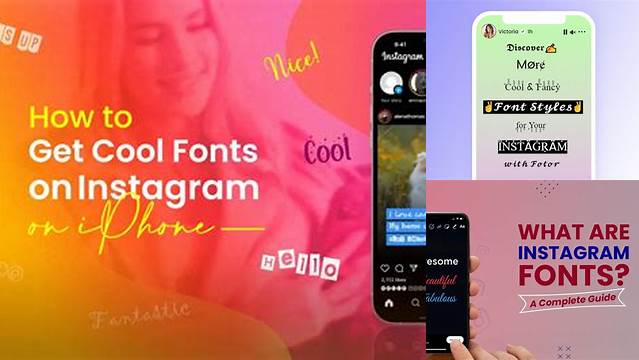
Cool IPhone Fonts For Instagram: How To Use
Hey guys! Ever wonder how some Instagram profiles have those super cool and unique fonts? It’s not just magic! Using different fonts can seriously level up your Instagram game, making your posts and bio stand out. If you're looking to add some flair to your Insta, you've come to the right place. We’re going to dive deep into the world of iPhone fonts for Instagram, showing you how to find, use, and even create your own eye-catching text. So, grab your iPhone, and let's get started!
1. Why Use Custom Fonts on Instagram?
Okay, so why bother changing your fonts on Instagram? Well, think of it this way: your profile is your digital storefront. Using unique iPhone fonts for Instagram can be like having a catchy sign or a beautifully designed window display. It grabs attention! A consistent and stylish font can help you build a brand identity, making your posts instantly recognizable. Plus, let's be real, it just looks cool. Whether you're aiming for a playful, elegant, or edgy vibe, the right font can help you convey your personality and message more effectively. So, ditch the standard text and let's explore how custom fonts can transform your Instagram presence!
2. Finding the Best Font Apps for Instagram
Finding the best iPhone fonts for Instagram doesn't have to be a chore. There are tons of awesome apps out there that make it super easy! Think of these apps as your font treasure chests, packed with all sorts of styles, from handwritten scripts to bold, modern designs. Some popular choices include Fontsy, Cool Fonts, and Fancy Text. These apps usually work by letting you type your text within the app, choose your favorite font, and then copy and paste it into your Instagram bio or captions. It’s like a font buffet at your fingertips! We’ll explore some of the top contenders and their standout features to help you pick the perfect app for your Insta-font needs.
3. How to Change Your Instagram Bio Font
Changing your Instagram bio font is one of the quickest ways to make a big impact. Your bio is like your digital first impression, so why not make it a memorable one? To change your bio font, you’ll typically start by using a font generator app. Type your desired bio text into the app, scroll through the font options, and choose the one that screams “you.” Once you've found your perfect font, simply copy the text and paste it into your Instagram bio. Voila! You've got a fresh, eye-catching bio that reflects your style. We’ll walk you through the process step-by-step, so even if you're a total newbie, you'll be rocking a stylish bio in no time.
4. Using Fonts in Instagram Captions
Captions are where you really get to connect with your audience, and the right font can help amplify your message. Imagine pairing a heartfelt story with an elegant script font, or a bold announcement with a strong, blocky typeface. Using different iPhone fonts for Instagram captions can add emphasis, create visual interest, and even convey the tone of your message. The process is similar to changing your bio font: use a font generator app, type your caption, choose your font, and copy-paste it into your Instagram post. We’ll show you how to use fonts strategically in your captions to make your posts more engaging and shareable.
5. Creating Stylish Instagram Stories with Custom Fonts
Instagram Stories are all about being creative and in the moment, and fonts play a huge role in that. The built-in font options in Instagram Stories are decent, but if you really want to stand out, using custom fonts is the way to go. Many font apps integrate directly with Instagram Stories, making it super easy to add unique text to your photos and videos. Think about using a playful font for a behind-the-scenes glimpse, or a chic font for a stylish product announcement. We’ll explore how to use font apps to create visually stunning stories that capture your audience's attention.
6. Best Fonts for Instagram Posts
Choosing the best iPhone fonts for Instagram posts can feel like picking the perfect outfit for a special occasion. You want it to match the mood, style, and overall aesthetic of your content. For a classic and elegant vibe, consider fonts like Times New Roman or Georgia (or their stylish alternatives in font apps). If you're going for something more modern and minimalist, try sans-serif fonts like Helvetica or Arial. And for a touch of personality, script fonts like Brush Script or Lobster can add a handwritten feel. We'll break down the top font styles and how to use them effectively in your posts.
7. Matching Fonts to Your Instagram Aesthetic
Your Instagram aesthetic is like your personal brand, and the fonts you use should complement it. If you have a bright and colorful feed, playful and bold fonts might be a good fit. For a more minimalist and muted aesthetic, clean and simple sans-serif fonts could be the way to go. The key is to choose iPhone fonts for Instagram that enhance your overall look and feel, creating a cohesive and visually appealing profile. We’ll share tips on how to align your font choices with your unique style, helping you create a strong and memorable brand identity.
8. Free vs. Paid Font Apps: Which Should You Choose?
When it comes to font apps, you've got options: free and paid. Free apps can be a great starting point, offering a solid selection of fonts without costing you a dime. However, paid apps often come with a wider range of font styles, more customization options, and fewer ads. Think of it like this: free apps are like a basic wardrobe, while paid apps are like having a personal stylist. We’ll weigh the pros and cons of free and paid font apps, helping you decide which option is the best fit for your needs and budget.
9. Top Free Font Apps for Instagram
If you're on a budget, there are plenty of amazing free font apps for Instagram that won't break the bank. Apps like Fontsy, Cool Fonts, and Stylish Text offer a decent selection of fonts without any upfront cost. These apps often have a mix of basic and more creative font styles, allowing you to experiment and find your favorites. While they might have ads or limited features compared to paid apps, they're still a great way to add some flair to your Instagram. We’ll highlight the top free apps and their standout features, so you can start rocking custom fonts without spending a penny.
So there you have it! Everything you need to know about iPhone fonts for Instagram. From finding the best apps to understanding font psychology, you're now equipped to level up your Insta game with stylish and unique fonts. Go forth and create amazing content!